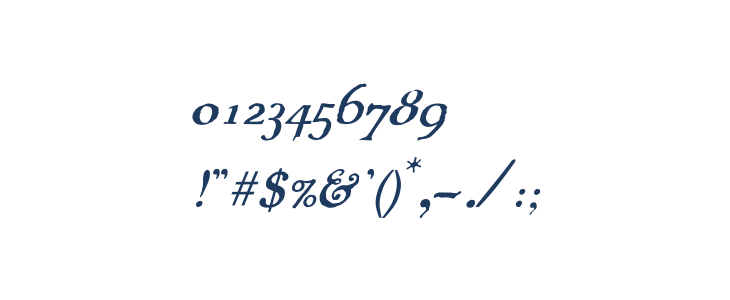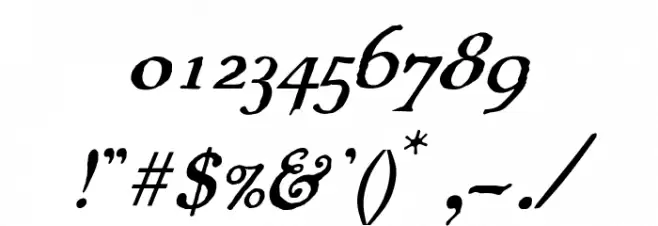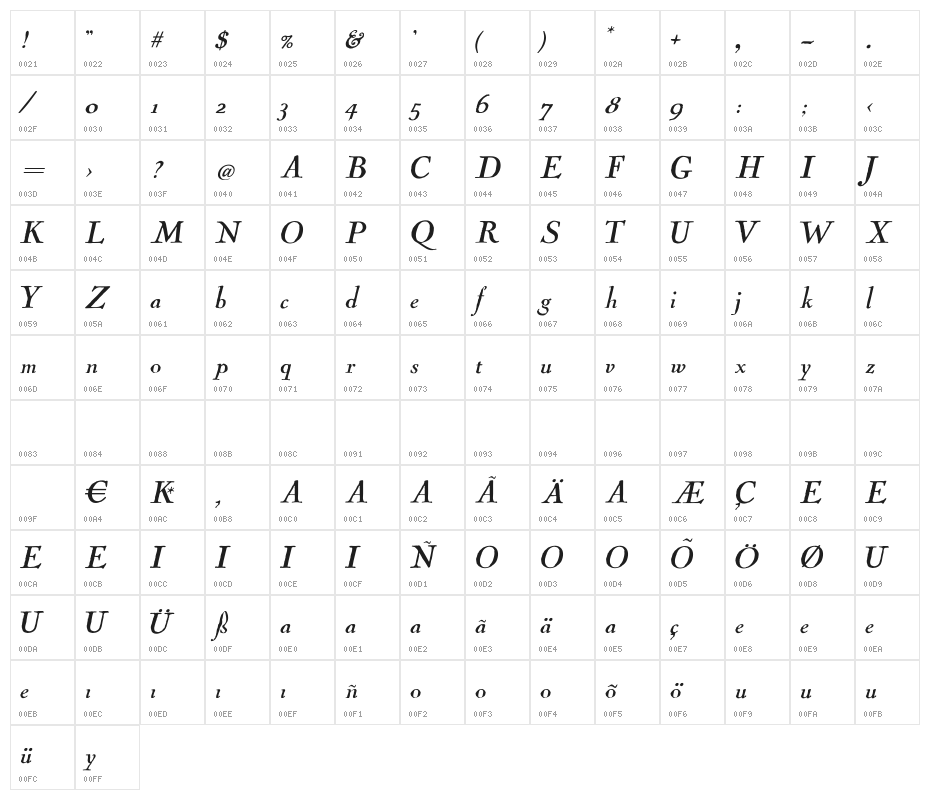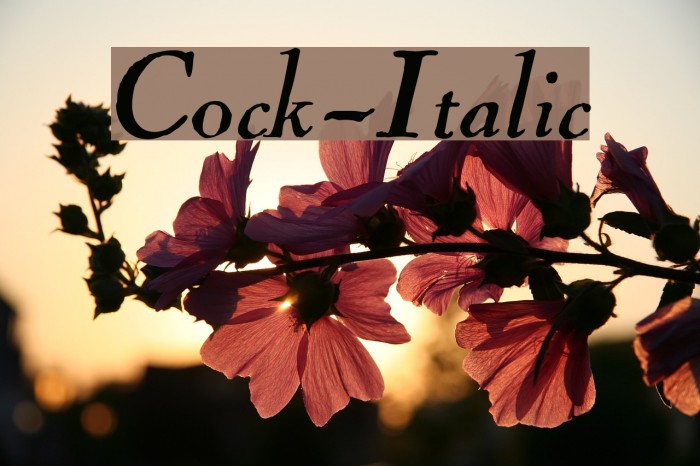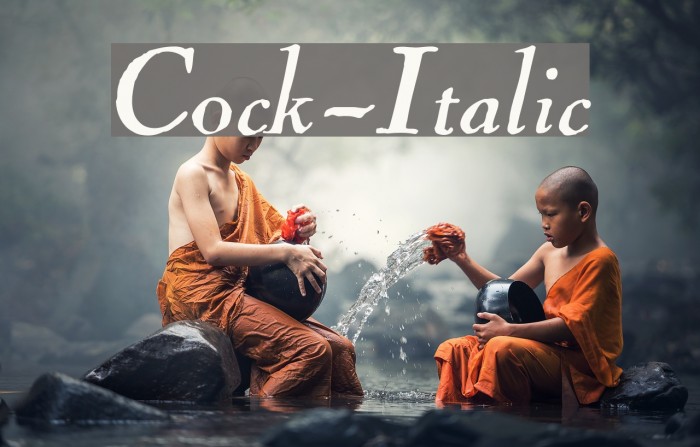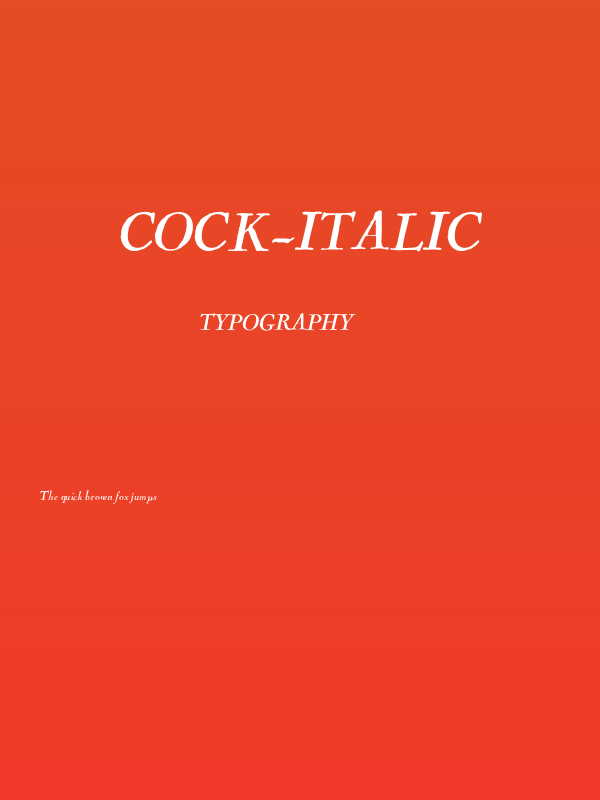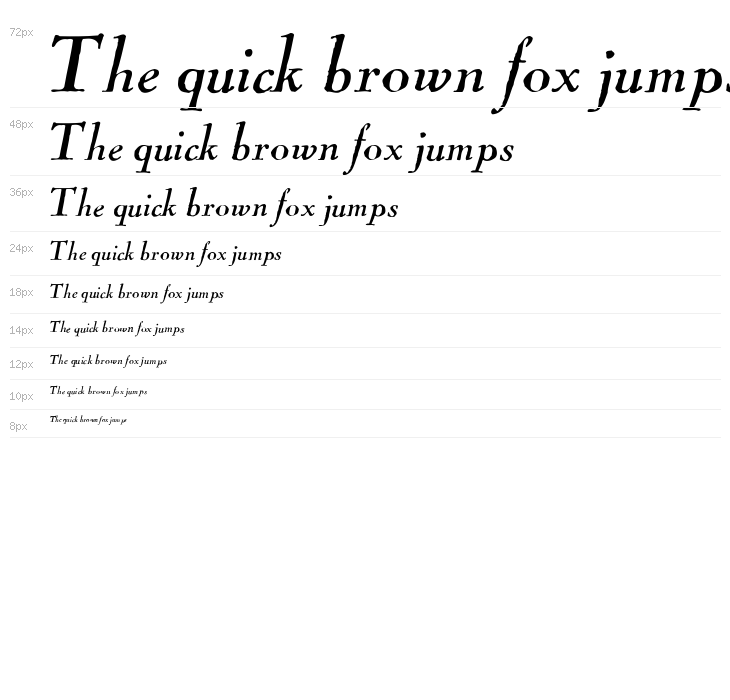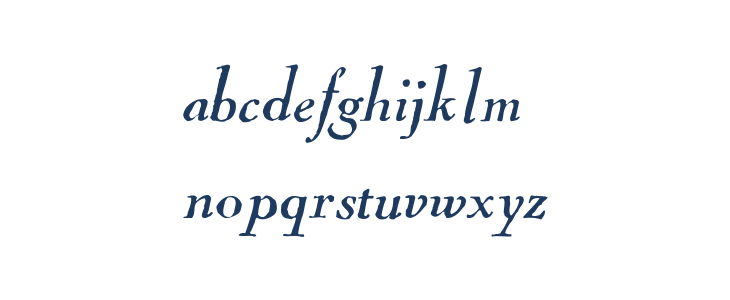
Cock-Italic Font
Cock-Italic Description
This elegant and flowing typeface features a classic italic style with a touch of sophistication. The characters exhibit a slight slant to the right, enhancing the sense of movement and grace. The strokes are moderately thick, providing a balanced contrast that ensures readability while maintaining an artistic flair. The serifs are delicately crafted, adding a traditional touch to the overall modern aesthetic. This font is versatile, suitable for both formal and creative applications, making it an excellent choice for projects that require a refined yet approachable look.
Overall StyleClassic
Use CaseHeadlines, Body text, Logos
Proposed ProjectsIdeal for wedding invitations, elegant branding, book covers, and editorial design.